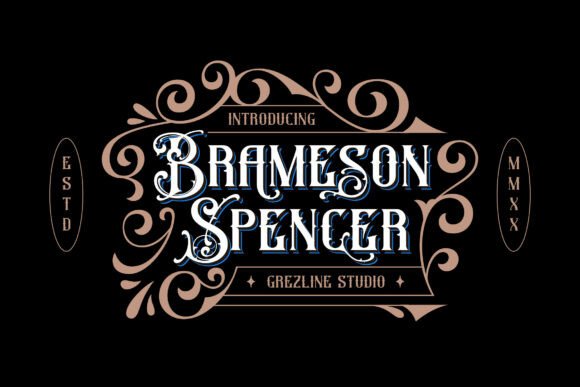
Introducing Brameson Spencer: The Elegant Display Typeface for Creative Projects
Have you ever worked on a design project, only to find yourself stuck on one thing: the perfect font? I recall a recent experience where I was tasked with creating a high-end branding campaign for a luxury fashion brand. The client wanted a font that exuded elegance, confidence, and a premium visual presence. After scouring the internet and testing numerous fonts, I stumbled upon Brameson Spencer – a display typeface that instantly caught my attention.
Brameson Spencer is a bold, classic character font with refined ornamental details, designed to deliver a strong and distinctive identity in every composition. Its unique blend of decorative serif forms and a vintage-modern aesthetic makes it an ideal choice for high-end branding, posters, product packaging, editorial headlines, and creative projects that demand a touch of timeless sophistication.
An Honest Review of Brameson Spencer
- ✅ Elegant and refined design with a strong visual presence
- ✅ Versatile and suitable for various design projects, from branding to editorial headlines
- ✅ Unique blend of decorative serif forms and vintage-modern aesthetic
- ✅ Well-crafted to ensure excellent legibility and readability
- ⚠️ Limited use in body text due to its bold and ornate nature
- ⚠️ May require additional styling or adjustments for optimal use in digital platforms
The Backstory Behind Brameson Spencer
Brameson Spencer was designed with the intention of creating a font that embodies the perfect blend of elegance and sophistication. The designer’s inspiration came from classic serif fonts, with a modern twist to make it suitable for contemporary design projects. The result is a font that exudes confidence and a premium visual presence, making it an excellent choice for high-end branding and creative projects.
Q: What type of projects is Brameson Spencer best suited for?
A: Brameson Spencer is ideal for high-end branding, posters, product packaging, editorial headlines, and creative projects that demand a strong and distinctive identity.
Q: Can I use Brameson Spencer for body text?
A: While Brameson Spencer is a beautiful font, it’s not recommended for body text due to its bold and ornate nature. It’s best suited for headlines, titles, and short paragraphs.
Q: Does Brameson Spencer support OpenType features?
A: Yes, Brameson Spencer supports OpenType features, including stylistic alternates, glyphs, and ligatures, which can be accessed in compatible design software.